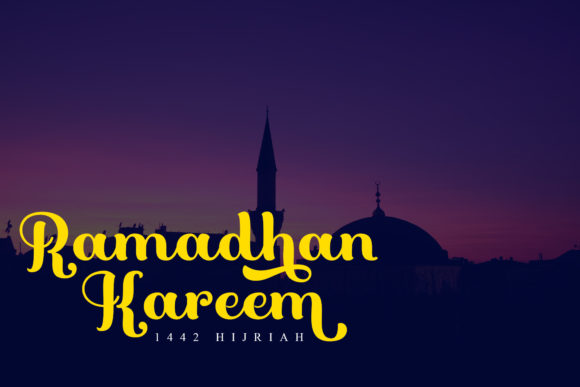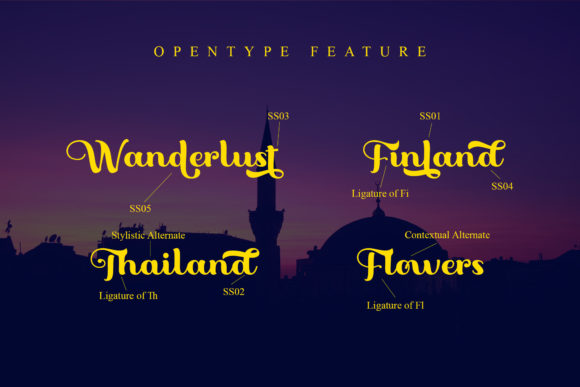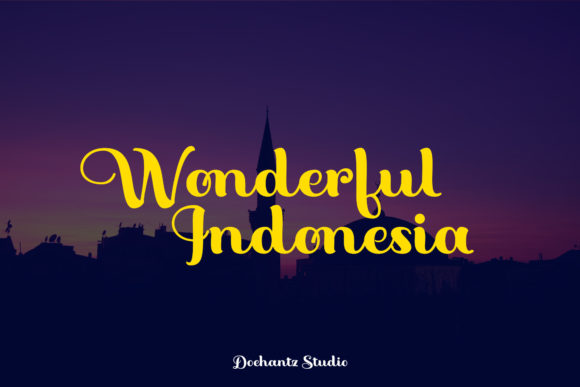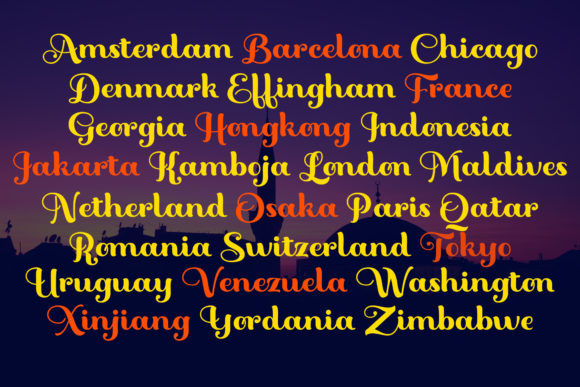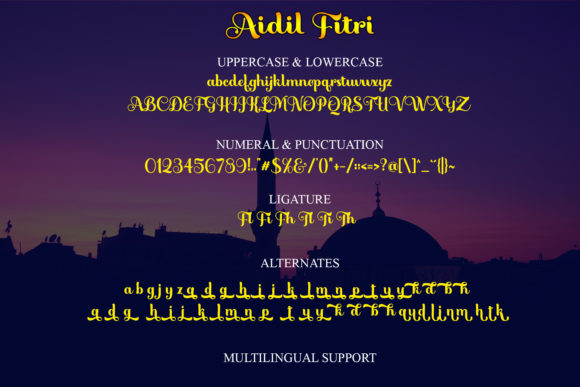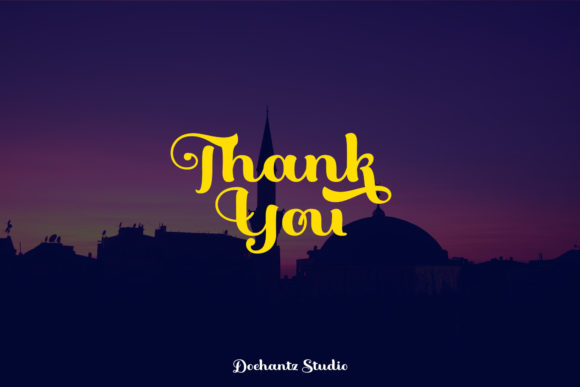
The Perfect Font for a Memorable Aidil Fitri Celebration
As I sat down to plan a special event for Aidil Fitri, I knew I needed something more than just a traditional font to make it truly unforgettable. I wanted to add a touch of luxury and elegance to my invitations, and that’s when I stumbled upon the perfect solution – the Aidil Fitri Font.
This modern and distinct script font is influenced by the Arabic style, making it the perfect choice for any Aidil Fitri celebration. With its PUA encoded feature, accessing all the amazing glyphs and ligatures is a breeze, allowing you to add a personal touch to your designs. Whether you’re a professional designer or a DIY enthusiast, the Aidil Fitri Font is sure to elevate your projects and make them truly stand out.
- Font Family: Aidil Fitri Font is a unique font designed specifically for the Aidil Fitri (Eid al-Fitr) celebrations, making it ideal for creating festive and traditional content.
- Unique Characteristics: Aidil Fitri Font features intricate designs and ornaments inspired by traditional Islamic calligraphy, adding a touch of elegance and sophistication to any content.
Aidil Fitri Font Review
I recently had the chance to work with the Aidil Fitri Font, and I must say it’s a unique and interesting typeface. ✨ One thing that stands out is its traditional Malay-inspired aesthetic, which could be perfect for cultural or religious designs.
- ✨ Unique design: The Aidil Fitri Font has a distinct, hand-drawn feel that could add a touch of personality to your designs.
- ✨ Wide character set: The font includes a wide range of characters, including Latin and Malay scripts.
However, there are a few limitations to consider ⚠️:
- ⚠️ Limited font weights: The Aidil Fitri Font only comes in a few weights, which may limit its versatility.
- ⚠️ Not ideal for small text: The font’s traditional feel and unique design elements can make it difficult to read at small sizes.
- ⚠️ Limited language support: While the font includes Malay characters, it may not support other languages as well.
Overall, the Aidil Fitri Font is a great choice for designers who want to add a touch of cultural flair to their work. However, it may not be the best fit for projects that require a wide range of font weights or languages.
Use Aidil Fitri font for festive and celebratory designs, such as Eid al-Fitr decorations and invitations.
Experiment with different font sizes and styles to create a unique and eye-catching design.
Pair Aidil Fitri font with other festive elements, such as Islamic geometric patterns and bright colors, to create a cohesive and celebratory look.
Aidil Fitri font is commonly used for:
Eid al-Fitr decorations and invitations
Islamic holiday cards and greetings
Festive posters and banners